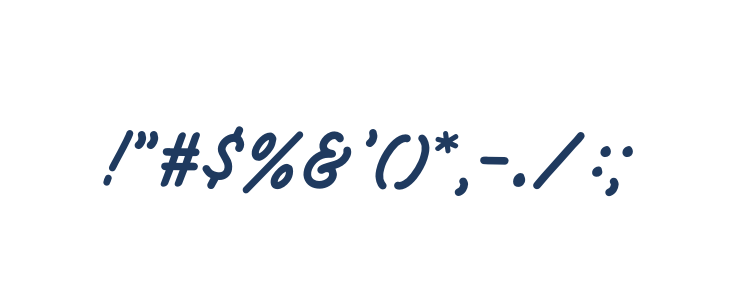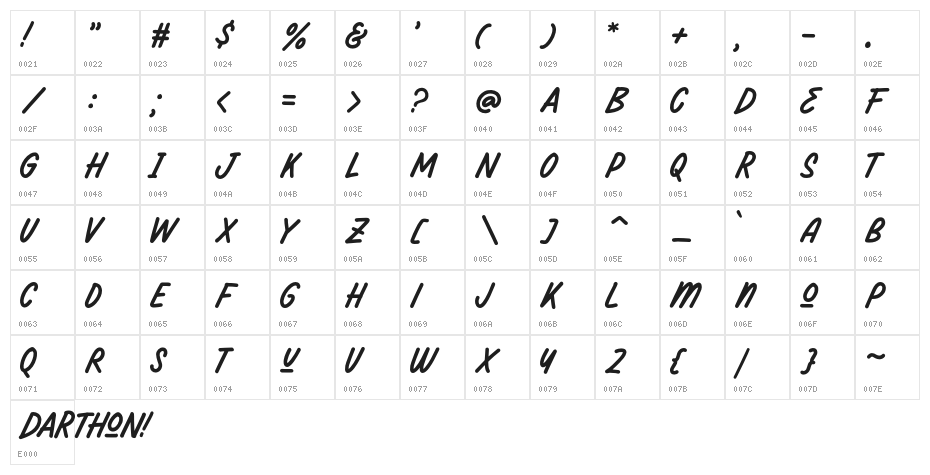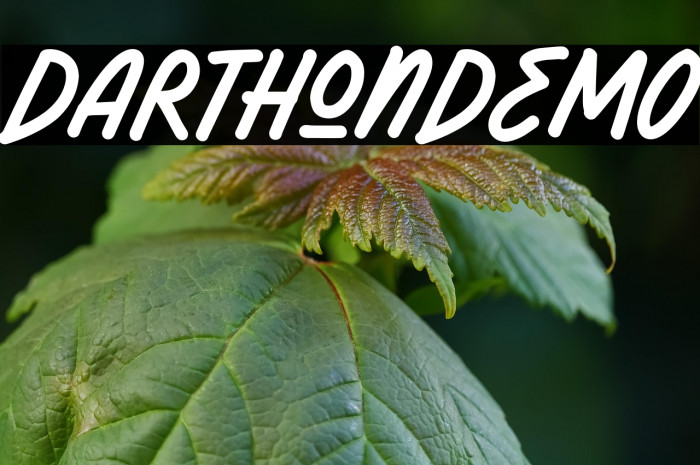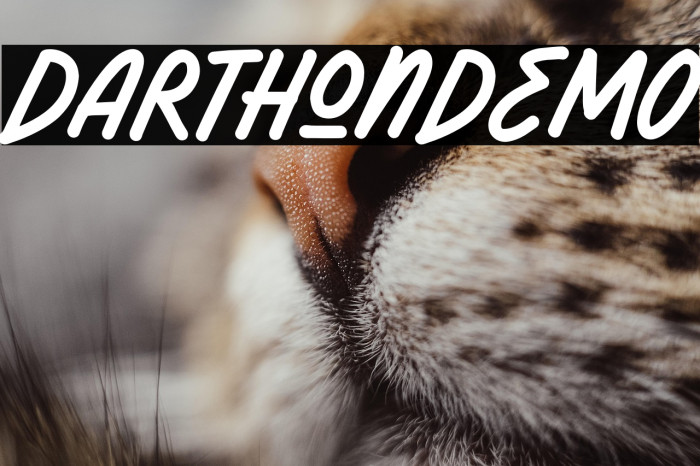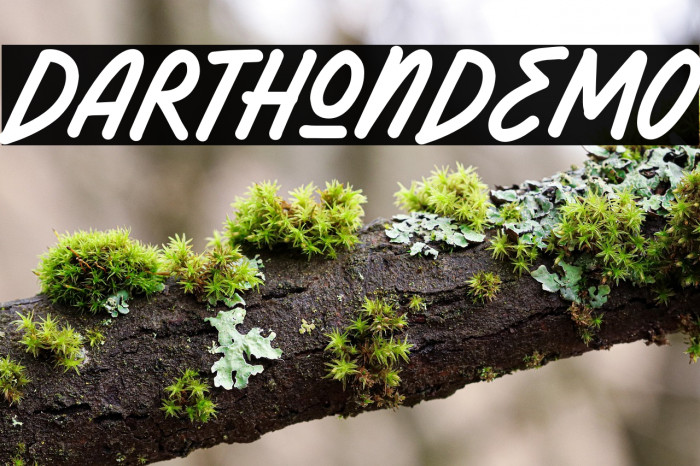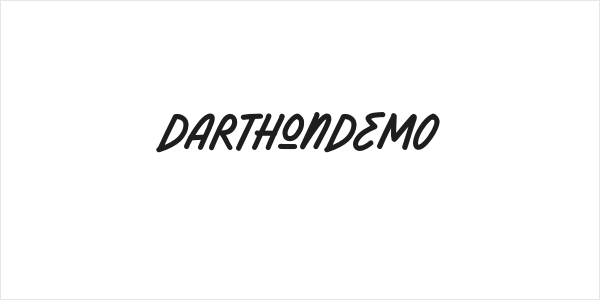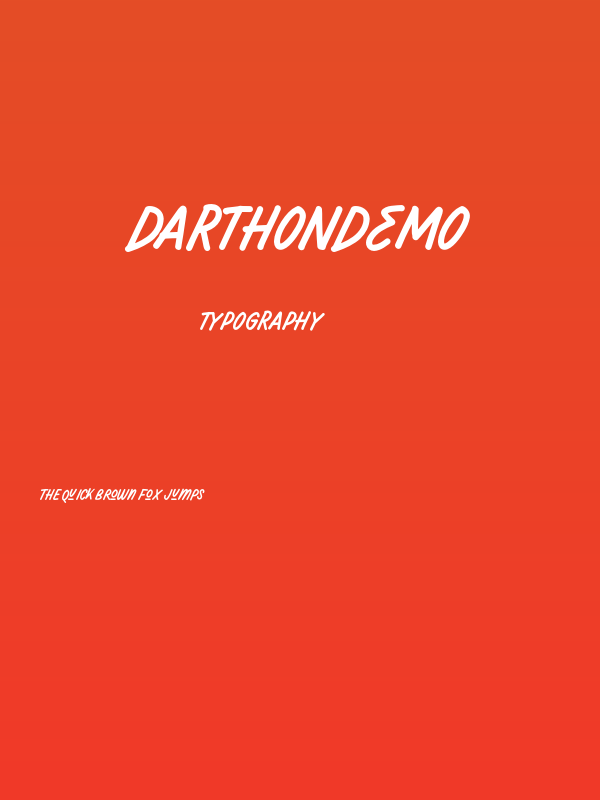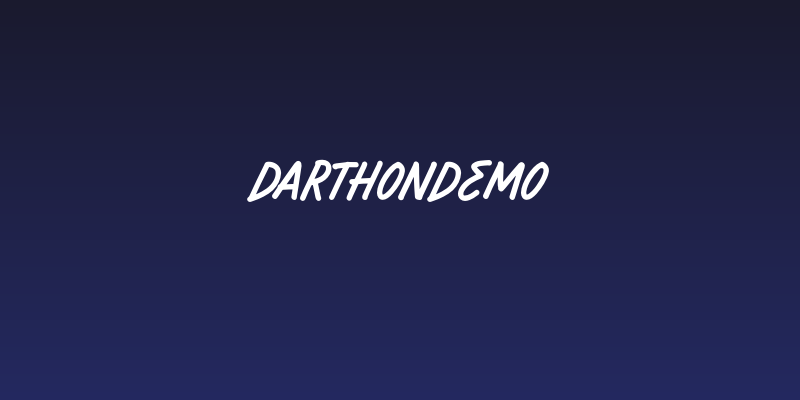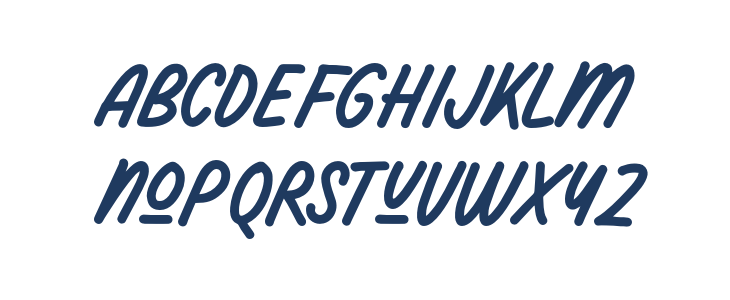
DarthonDEMO Font
DarthonDEMO Description
This font features a bold, handwritten style with a playful and energetic feel. The letters are slightly slanted, giving it a dynamic and informal appearance. The strokes are thick and consistent, providing a strong presence on the page. The uppercase and lowercase letters are well-balanced, maintaining readability while adding a touch of personality. The numerals and special characters are crafted with the same bold strokes, ensuring uniformity across all characters. This font is ideal for projects that require a personal touch or a casual, friendly vibe.